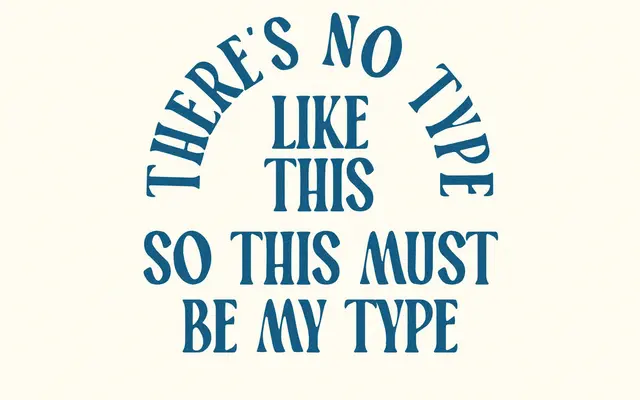
Makawao
A single-weight casual display face with a warm, unhurried character suited to branding, packaging and logotype work.
Built around a relaxed, slightly tropical sensibility, Makawao is offered in one weight with basic Latin coverage and a limited set of accented characters across 151 glyphs. The commercial licence covers logos, packaging, websites and broadcast without seat or traffic restrictions, making it straightforward for small studios and independent designers. Pairs well with other faces in the Taylor Penton catalogue such as Napili and Wawa.
Described by the foundry as a slightly tropical display font with a smooth, relaxed character, placing it firmly in casual display territory rather than any formal serif or sans-serif classification.